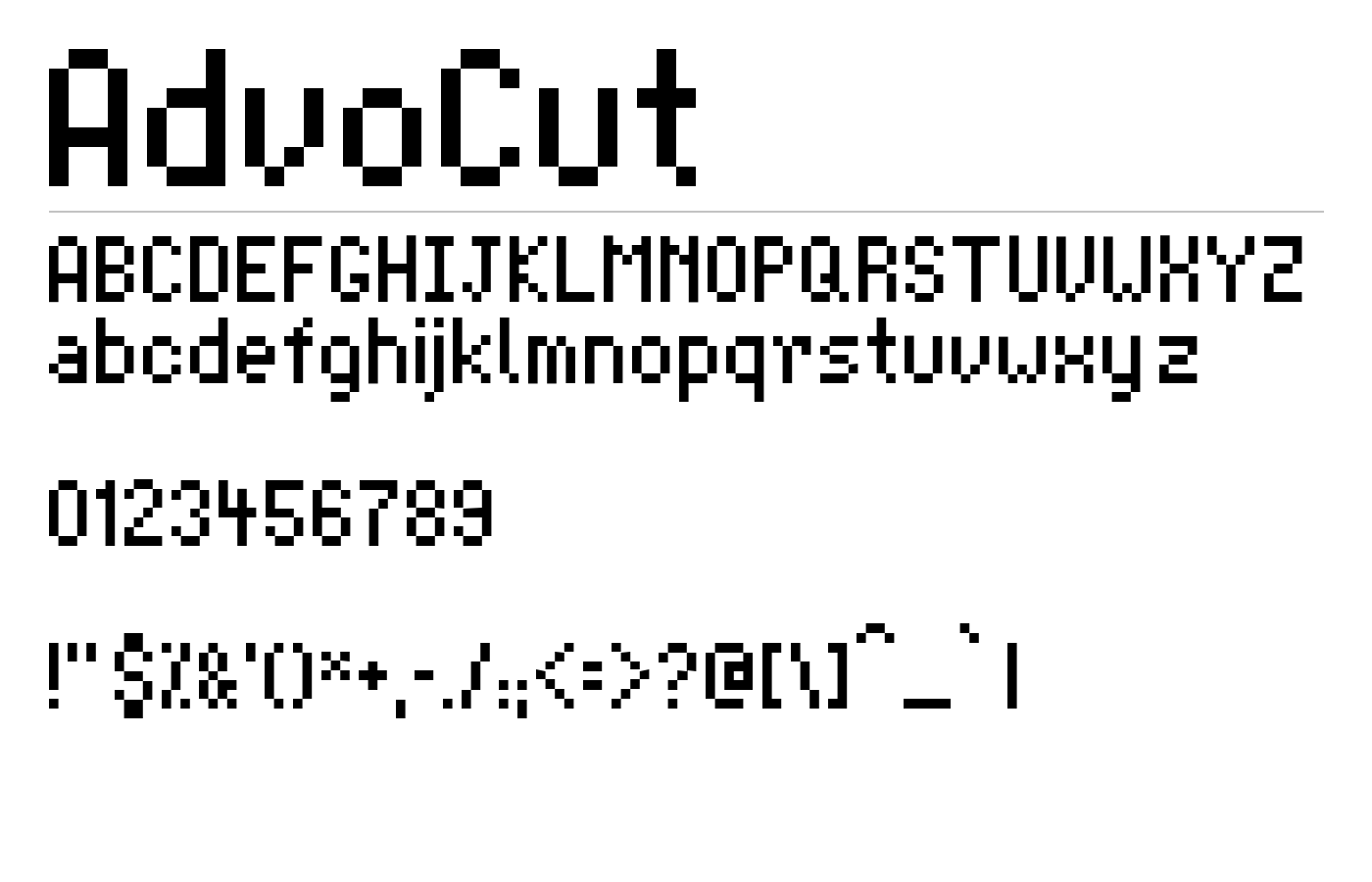
AdvoCut is a pixelated sans serif font with a monospaced, blocky design that evokes a retro digital or video game aesthetic. Its consistent weight, sharp edges, and narrow proportions create a tech-inspired, minimalistic feel perfect for digital interfaces, coding projects, and stylized headlines. This font works well where a vintage computer or pixel art vibe is desired, especially in creative tech branding and digital media.
AdvoCut Font
About AdvoCut Font
| Font family | AdvoCut Font |
| Designer | Marc "mieps" Misman |